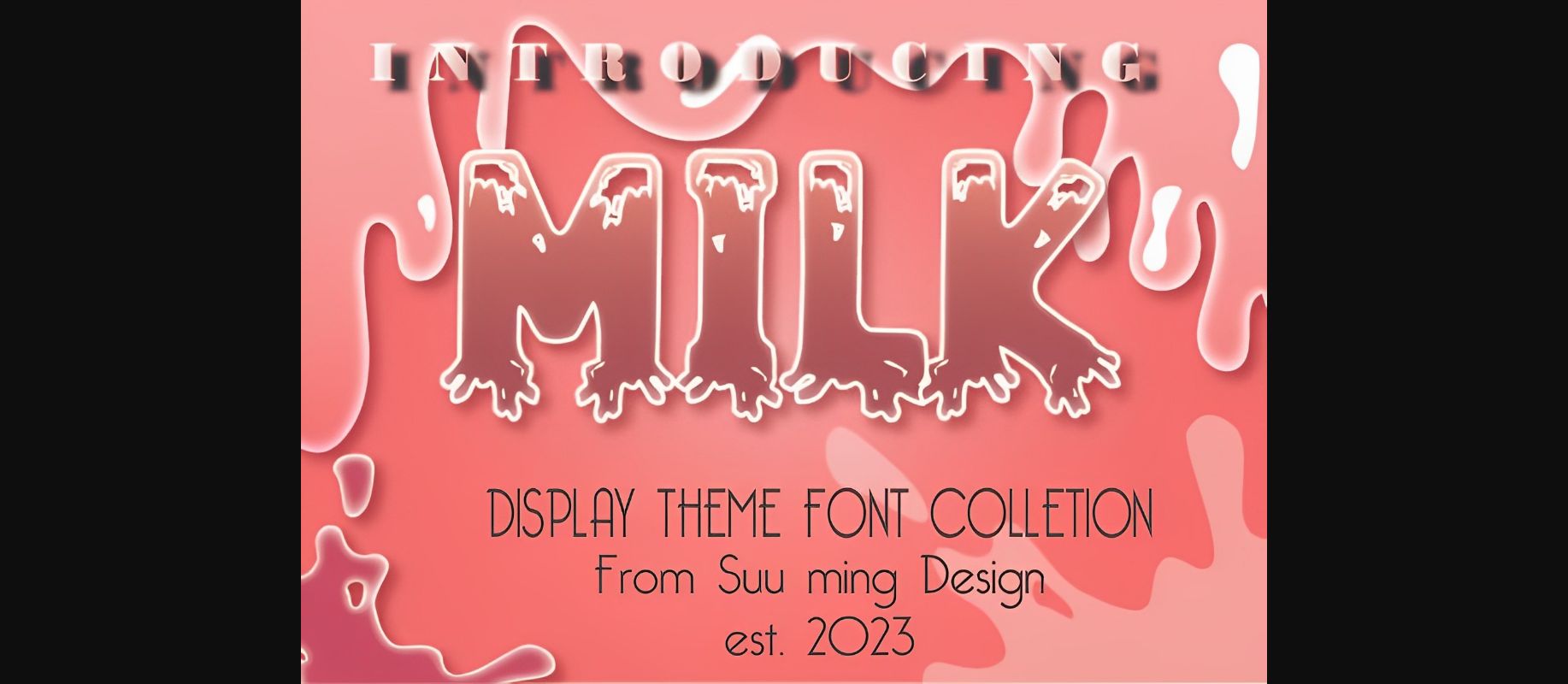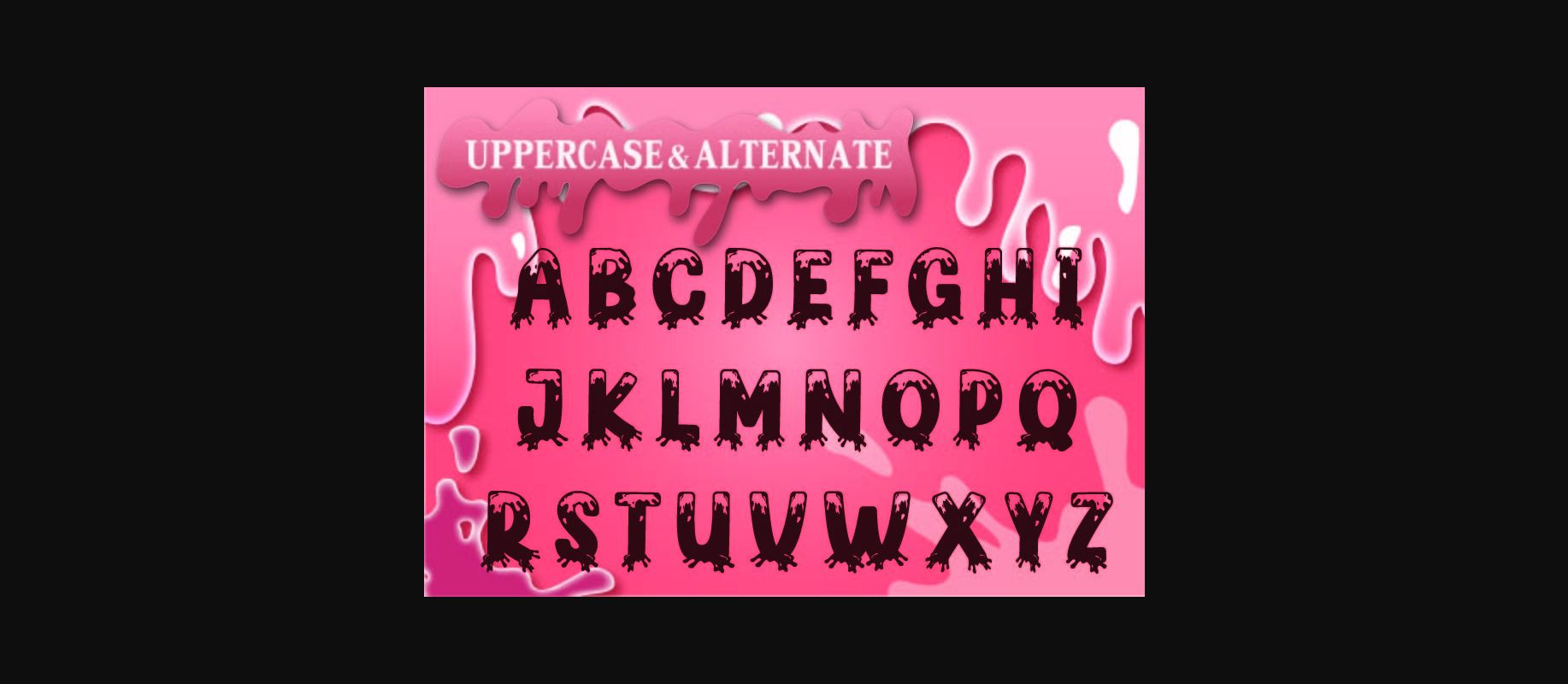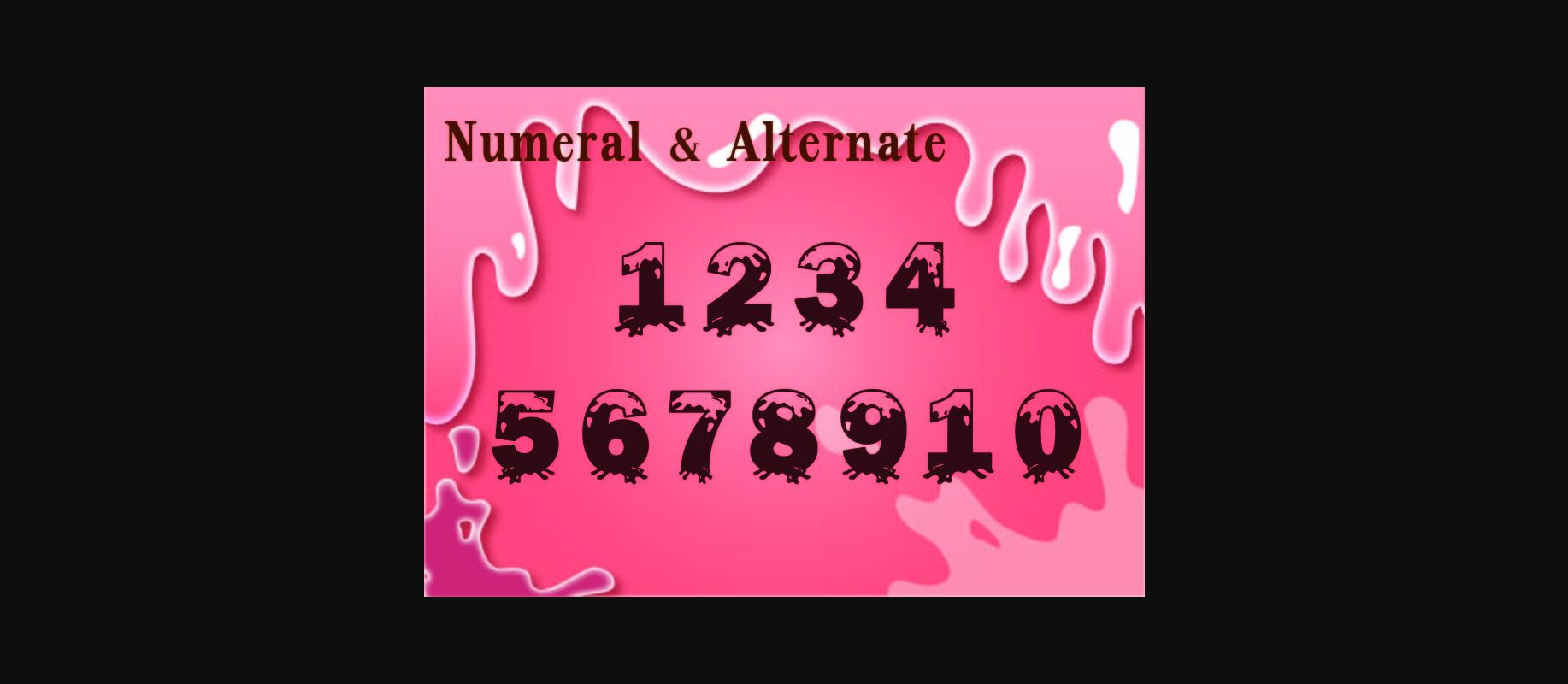
About Milk Font
Milk is a bold and playful display font. Milk is the perfect font for making original and outstanding designs. It looks nice on posters, flyers, t-shirts, quotes, and many more.